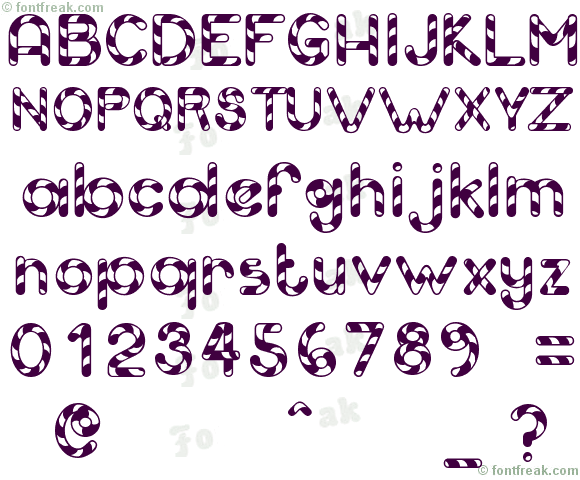
Candy Cane (Unregistered)
The Candy Cane font by Michel Bujardet is a delightful decorative typeface that captures the whimsical essence of the holiday season. With its playful curves and festive flair, this font brings a sense of joy and celebration to any design. The Candy Cane font features a bold stroke weight complemented by contrasting thin details, creating a captivating visual rhythm. The letterforms exhibit a charming, slightly rounded aesthetic, which enhances their legibility while maintaining a lighthearted vibe. The spacing is well-balanced, providing a harmonious flow that is both inviting and engaging.
This font is ideal for a variety of seasonal applications. It shines in contexts like holiday greeting cards, playful product packaging, and festive event invitations. Whether you're designing a Christmas party flyer, crafting cheerful decorations for a winter celebration, or creating eye-catching advertisements for seasonal sales, the Candy Cane font is an excellent choice. Its unique character makes it particularly appealing for small business owners looking to add a touch of festive charm to their branding or promotional materials.
Targeting graphic designers and content creators, the Candy Cane font offers a perfect blend of creativity and functionality. It allows for artistic expression while remaining versatile enough for various projects. The festive nature of this typeface resonates well with audiences seeking a joyful, light-hearted touch in their designs.
What truly sets the Candy Cane font apart is its ability to evoke nostalgia and warmth through its design. Its playful character invites users to embrace the spirit of the season, making it a standout choice for those looking to add a memorable touch to their holiday-themed projects. Experience the charm of the Candy Cane font with a Candy Cane font free download today and elevate your festive designs.